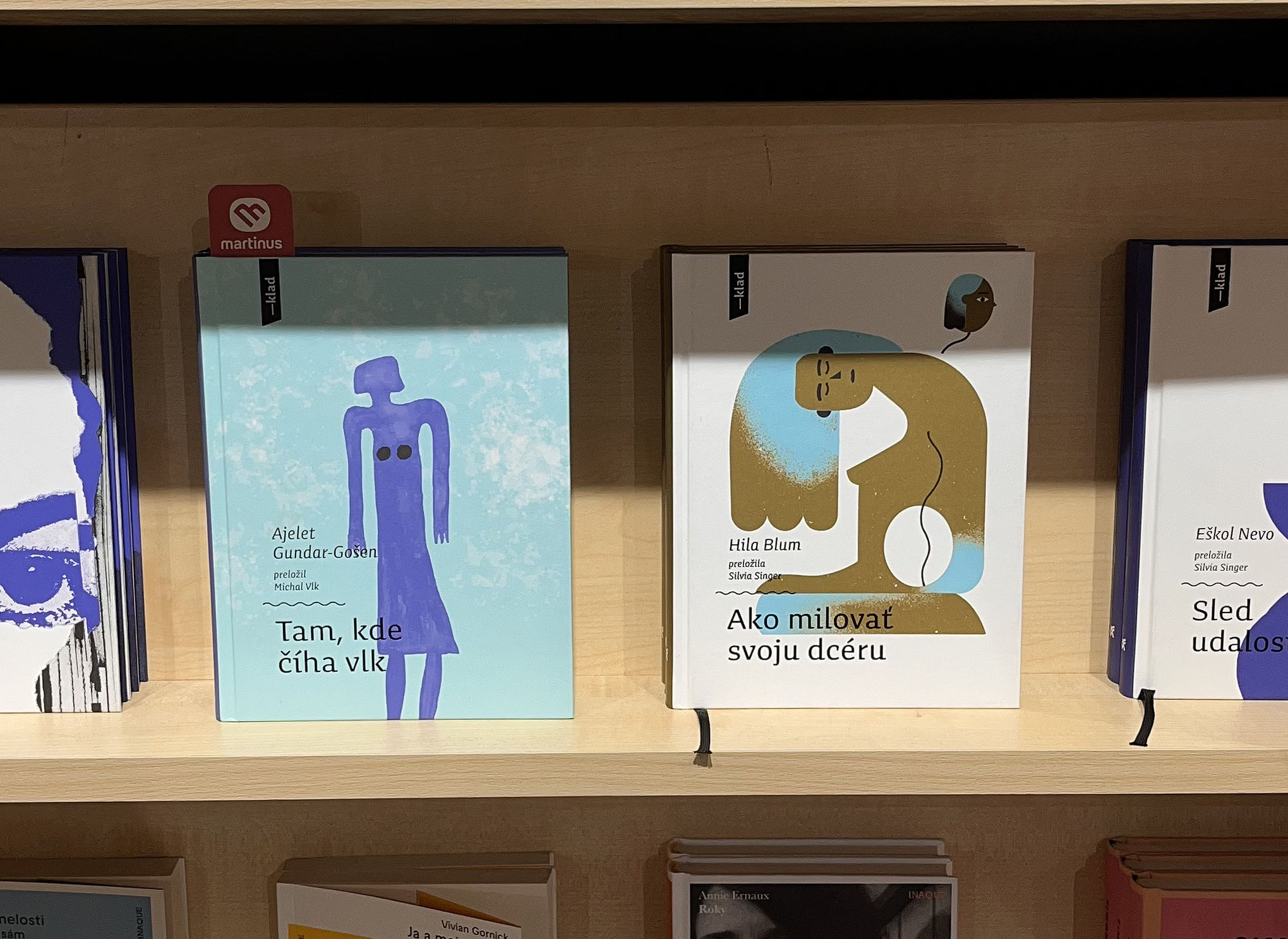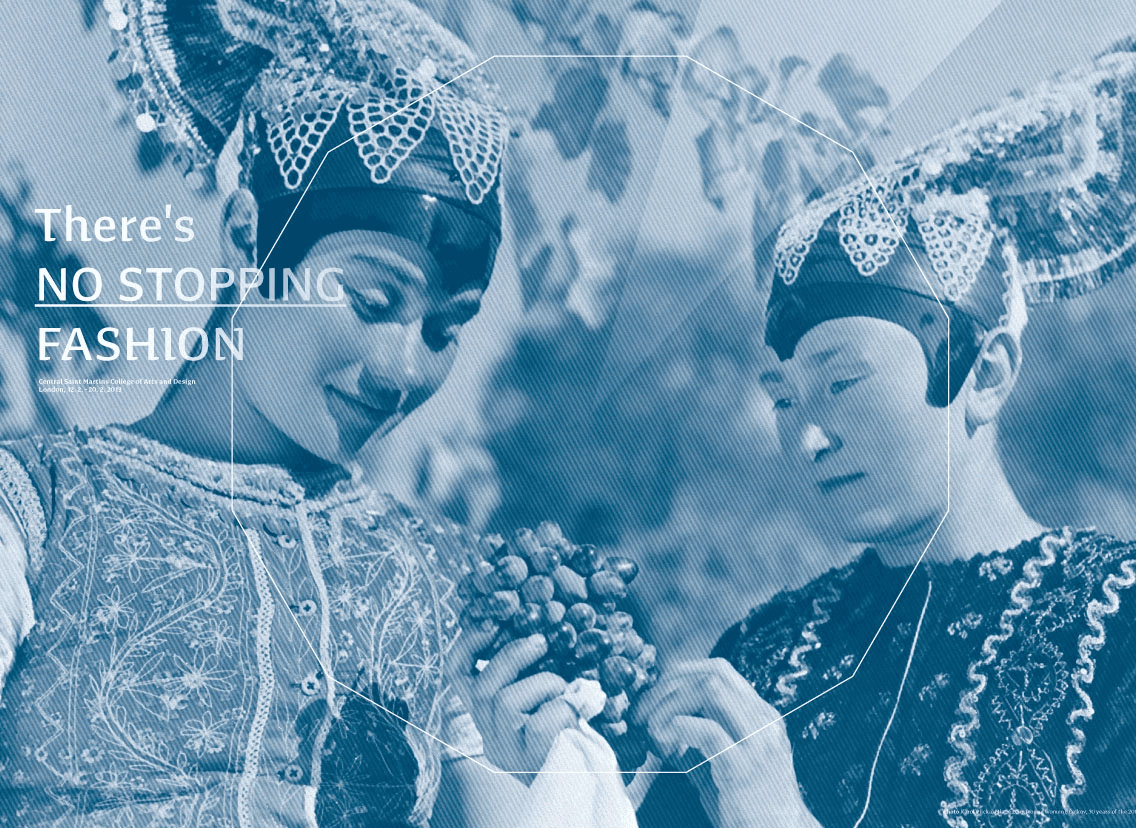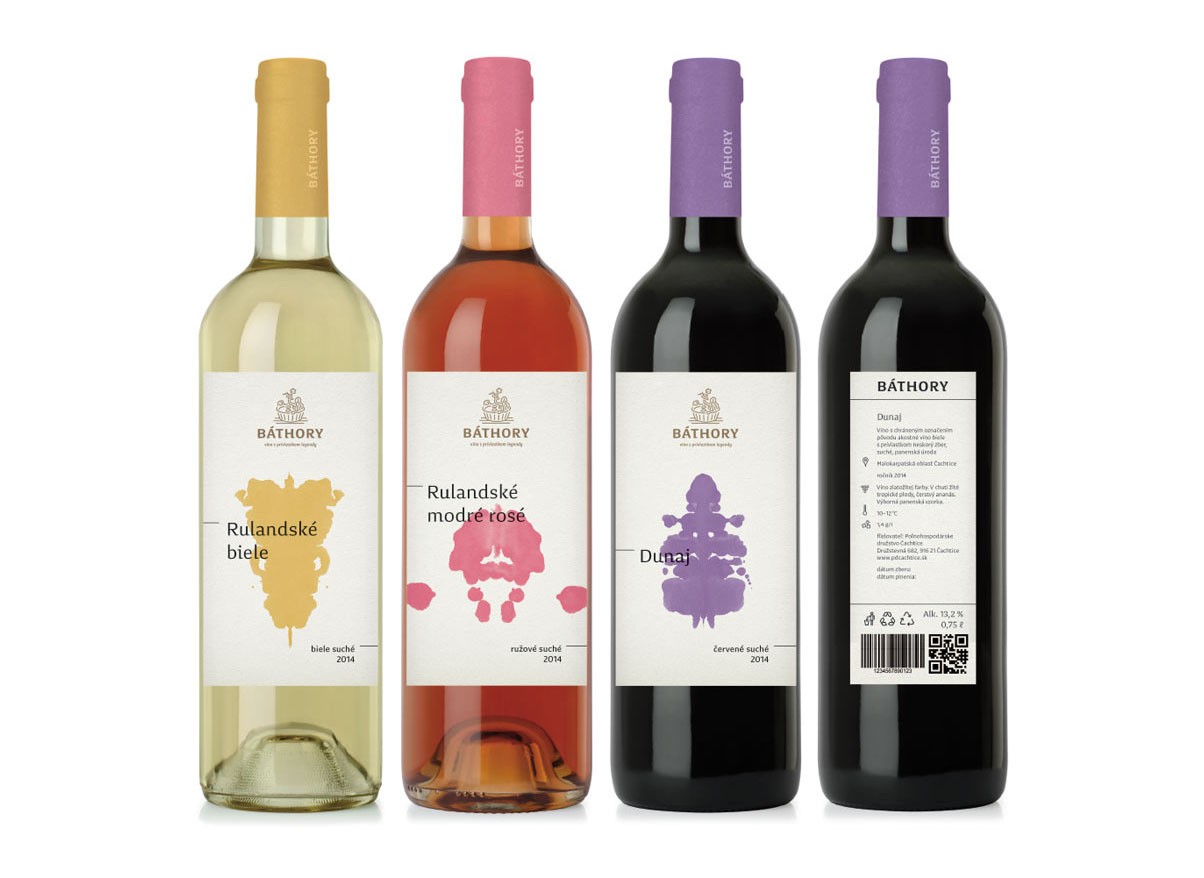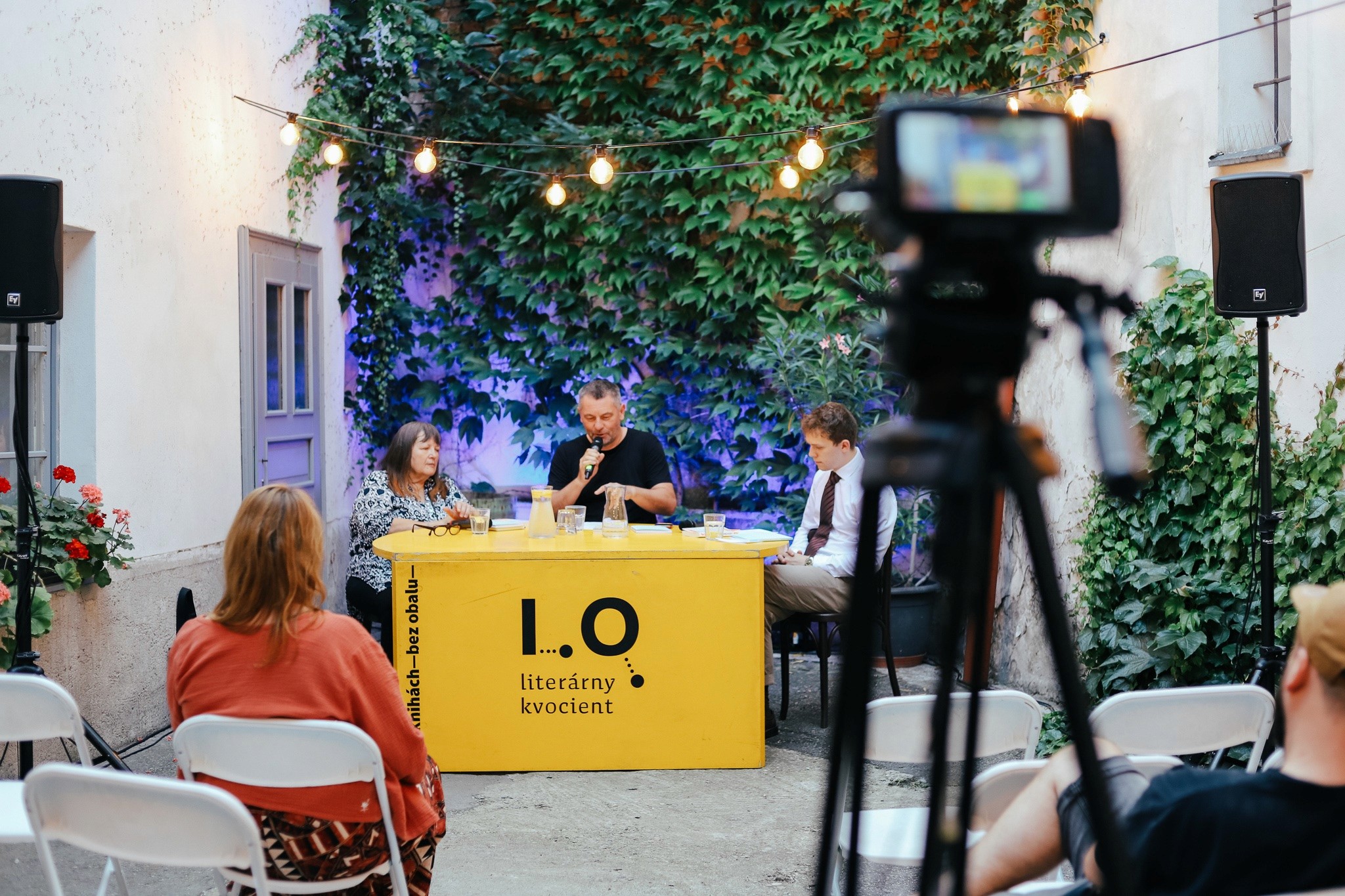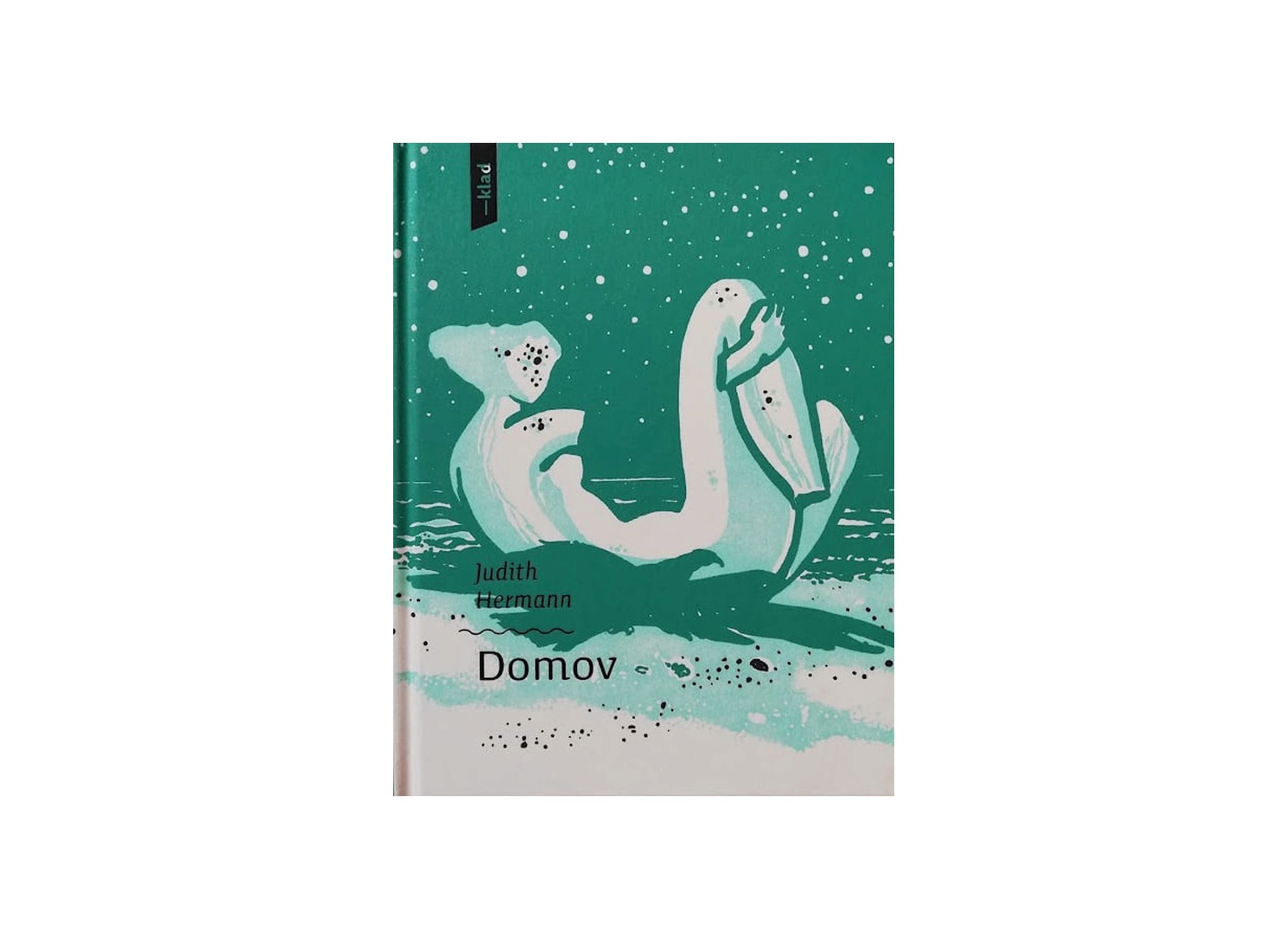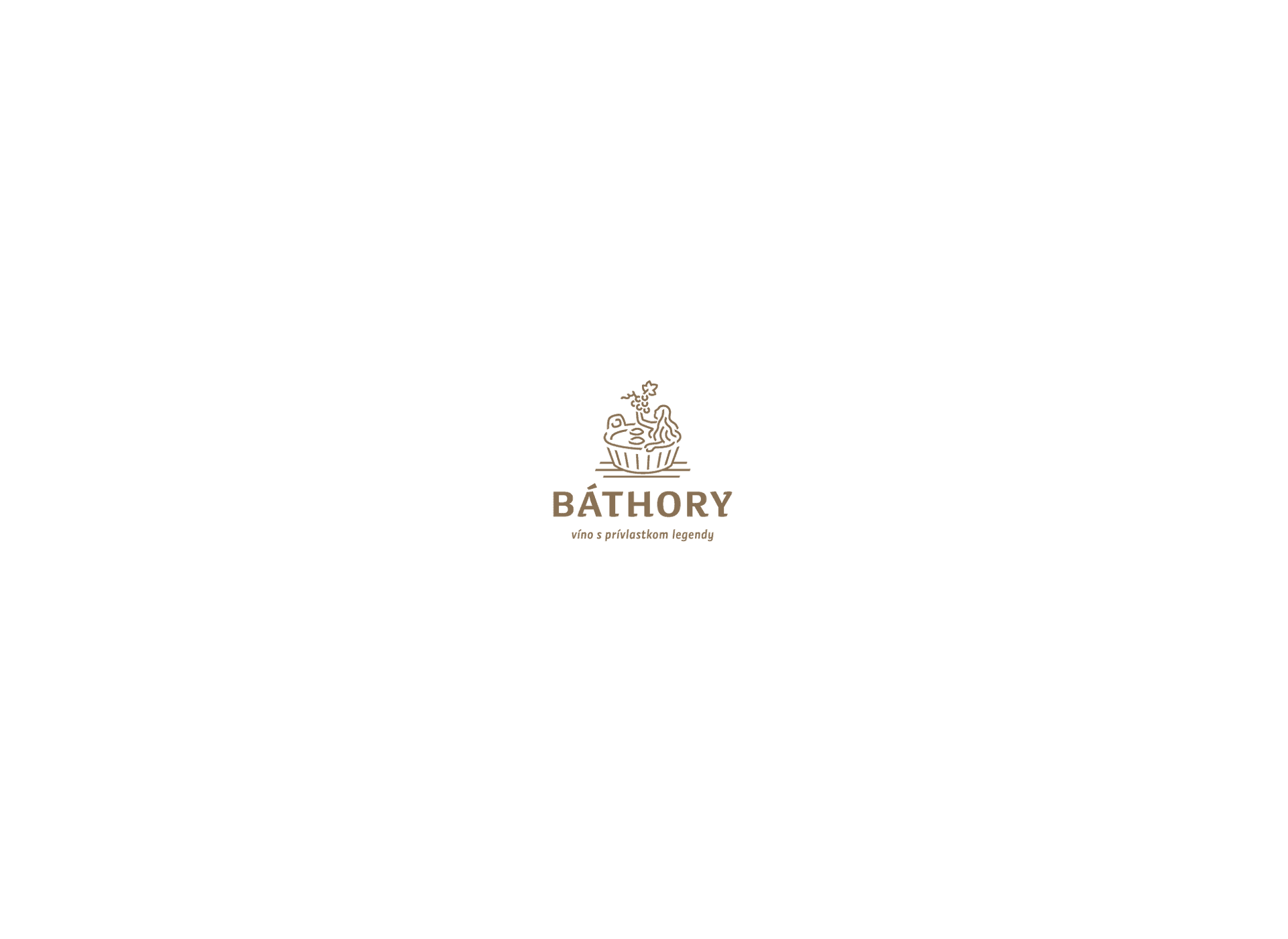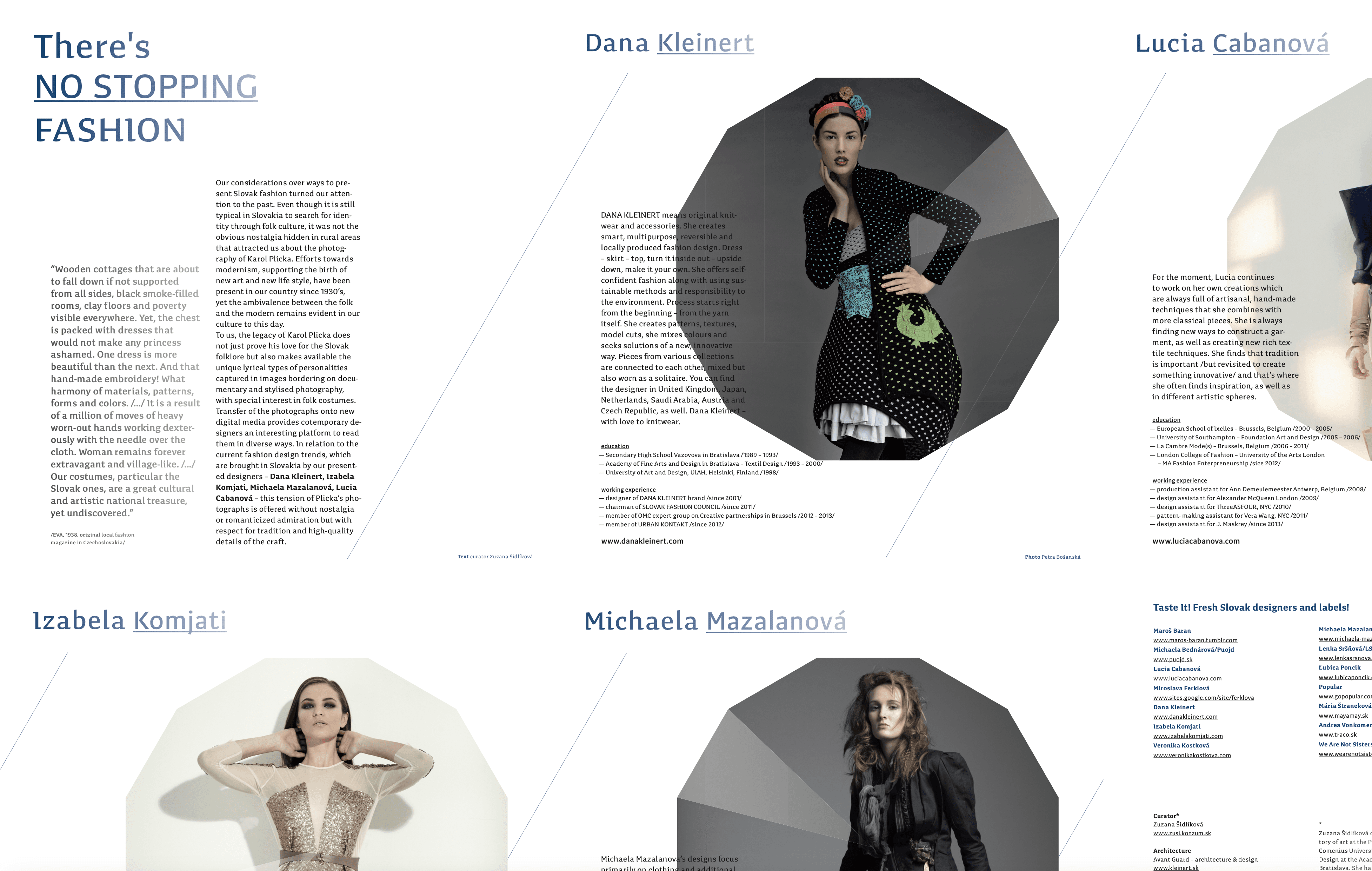
Experimental Semi-serif
for text sizes and paragraph setting
• Preto Semi Typeface in use for "There Is No Stopping Fashion" catalogue / Design: Michal Macko
• Preto Semi in use for the "—klad" book series / Illustration: Jarmila Čihánková / Design: Mária Rojko
• Preto Semi Typeface in use for "There Is No Stopping Fashion" catalogue / Design: Michal Macko
• Preto Semi Typeface in use for the Báthory wine label redesign proposal / Design: Tomáš Vrtich
• Preto Semi Typeface in use for "Literárny quocient" (Literary Quotient) events
About Preto Semi Typeface
Experimental Semi-serif
for text sizes and paragraph setting
Preto Semi is an experiment. It is an attempt to create a readable type for text point sizes (other than sans-serif and serif). Preto Semi is not a Sans with added serifs or Serif with serifs removed. The use of the serifs is redefined and used for other purpose(s). The serifs became the extension of the stroke. They help to solve the spacing problem of sans-serif types and they use the primary function of serifs – keeping the eye on the baseline and emphasize the horizontal rhythm of the lines of text.
Preto Semi is intended for magazines and editorial design, as other members of Preto family.
Preto Family
Preto is an extensive type family, which explores the function of serifs on readability and legibility. Preto consist of three subfamilies: Sans, Semi and Serif, which are designed for multilingual typesetting. All of the subfamilies have equal grey value in text sizes but different texture which can be use to differentiate languages. Preto subfamilies have two text weights and two bold styles (Regular > Bold, Medium > Black). Every weight has a companion Italic style which have big counter shapes and are ideal for setting the larger amount of text.
Release Date
2014
Category
Sans-Serif, Text, Display
Weights
8 (4 Roman + 4 Italics)
OpenType Features
Ligatures, Discretionaly ligatures, Stylistic Alternates, Contextual Alternates, All Caps, Small Caps, All Small Caps, Lining Numbers, Tabular Oldstyle Numbers, Slashed Zero, Fractions, Ordinals, Subscript / Inferior, Superscript / Superior, Stylistic Set 1, Stylistic Set 2, Stylistic Set 3, Stylistic Set 4, Localised forms